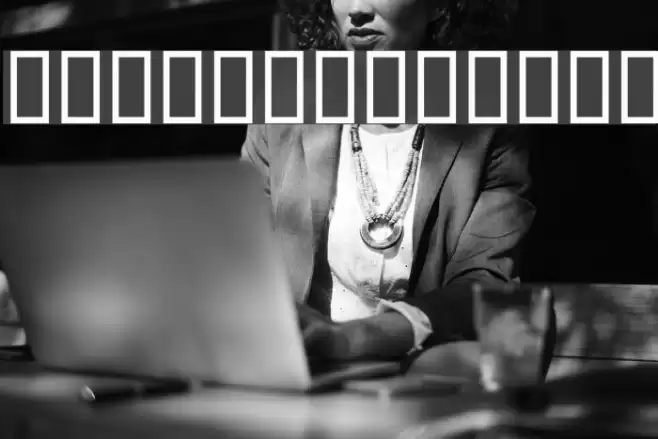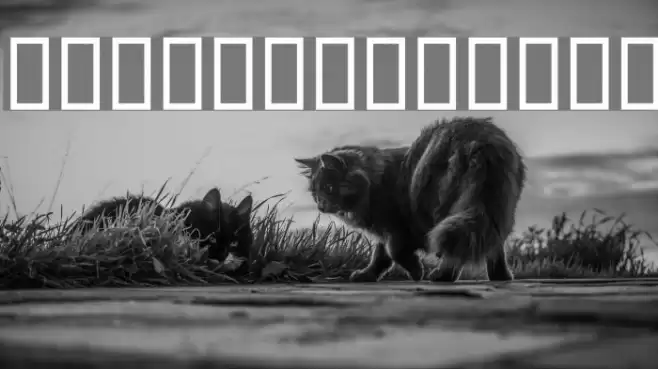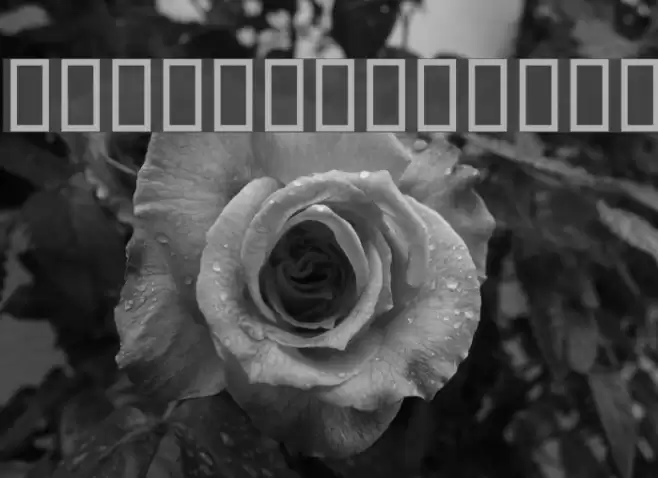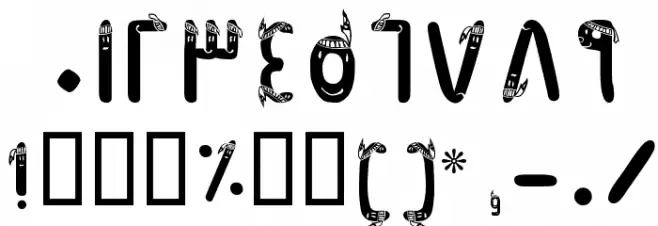
Sorkhpust Font
Sorkhpust Description
This font features a unique and playful design, incorporating whimsical elements into each character. The numbers and special characters are adorned with decorative patterns, giving them a lively and animated appearance. The overall style is highly decorative, making it suitable for creative and artistic projects. The characters have a medium contrast in stroke thickness, contributing to their distinctive look. The font's playful nature makes it ideal for children's books, posters, and any project that requires a fun and engaging typeface.
A whimsical and decorative font with playful, animated characters from Uncategorized fonts.
- Proposed Projects: Children's books, playful posters, creative invitations, artistic branding.